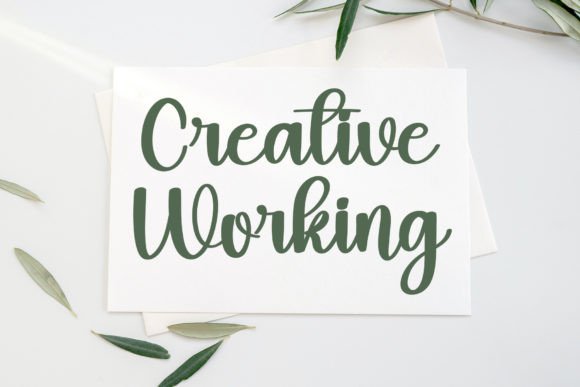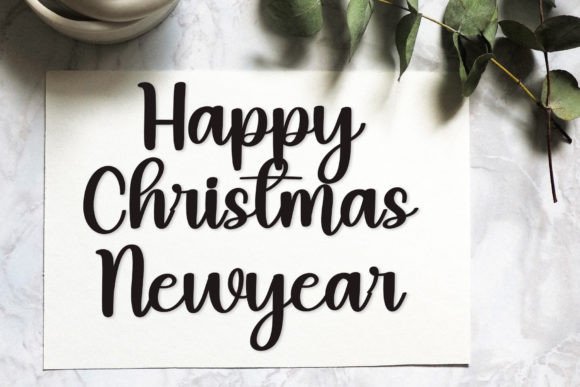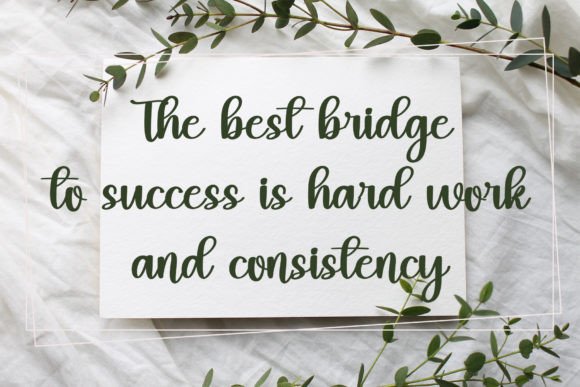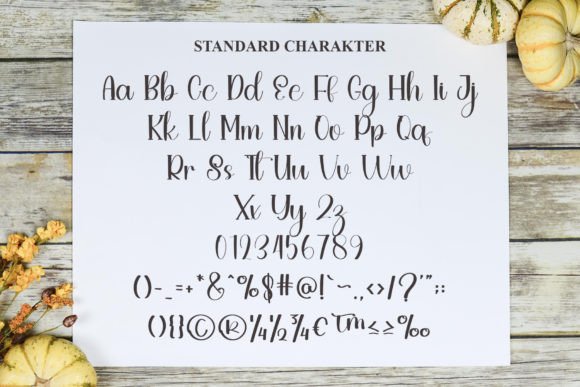
Introducing Elite Font: Elevate Your Designs with Elegance and Timeless Style
Are you on the hunt for a font that exudes sophistication, elegance, and a touch of timeless charm? Look no further than Elite Font, a stunning handwritten typeface that is sure to capture your heart. With its incredibly distinct and beautiful style, Elite Font is the perfect addition to any design project, whether you’re a seasoned designer or a crafty DIY enthusiast.
What Makes Elite Font So Special?
Elite Font is described by its elegant touch, which sets it apart from other fonts on the market. Its neat and beautiful handwritten style is perfect for creating spectacular designs that demand attention. Whether you’re working on a logo, branding materials, social media graphics, or even a website, Elite Font is sure to make your project stand out from the crowd.
One of the key features that makes Elite Font so special is its timeless style. Unlike trendy fonts that may quickly go out of style, Elite Font has a classic, sophisticated look that will remain relevant for years to come. This makes it an excellent choice for designers and crafters who want to create designs that won’t date quickly.
Elite Font is incredibly versatile, making it suitable for a wide range of projects. Here are just a few ideas to get you started:
- Logo Design: Create a stunning logo for your business or brand with Elite Font. Its elegant style is perfect for companies that want to convey sophistication and professionalism.
- Branding Materials: Use Elite Font to create beautiful branding materials, such as business cards, letterheads, and brochures.
- Social Media Graphics: Add a touch of elegance to your social media graphics, such as Facebook posts, Instagram stories, and Twitter headers.
- Website Design: Use Elite Font to create a beautiful website that showcases your brand’s personality and style.
- Crafting Projects: Elite Font is also perfect for crafters who want to add a personal touch to their projects, such as handmade cards, gift tags, and scrapbooking pages.
Why Choose Elite Font?
So why choose Elite Font over other fonts on the market? Here are just a few reasons:
- Unique Style: Elite Font has a unique and distinct style that sets it apart from other fonts.
- Elegant Touch: Its elegant touch makes it perfect for designers and crafters who want to create sophisticated designs.
- Timeless Appeal: Elite Font has a timeless appeal that ensures your designs will remain relevant for years to come.
- Versatility: Elite Font is incredibly versatile, making it suitable for a wide range of projects.
In conclusion, Elite Font is a stunning handwritten typeface that is sure to capture your heart. With its elegant touch, timeless style, and versatility, it’s the perfect addition to any design project. Whether you’re a seasoned designer or a crafty DIY enthusiast, Elite Font is sure to help you create spectacular designs that demand attention. So why wait? Fall in love with Elite Font today and elevate your designs to new heights!
- Elegant and beautiful handwritten style
- Timeless appeal
- Incredibly versatile
- Perfect for a wide range of projects
- Unique and distinct style